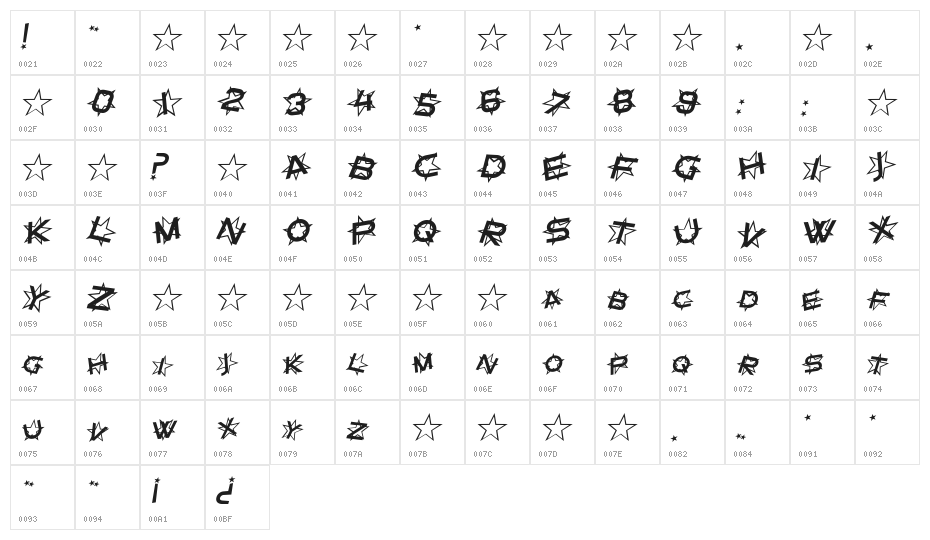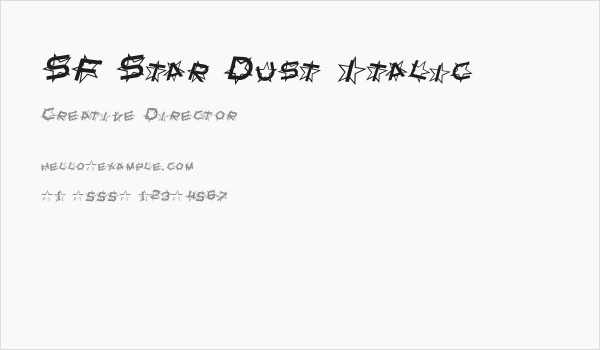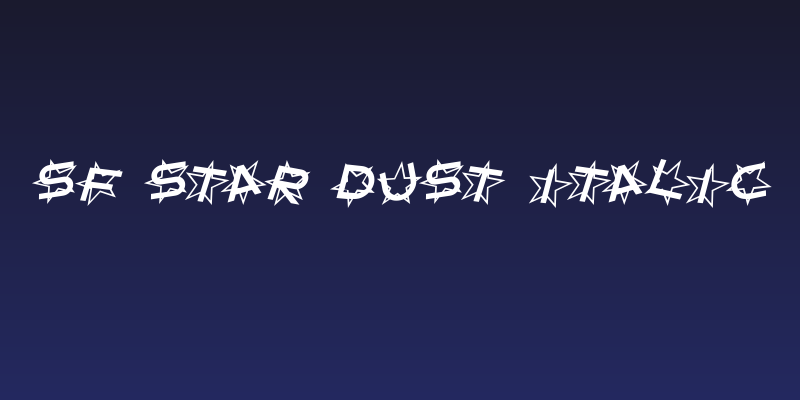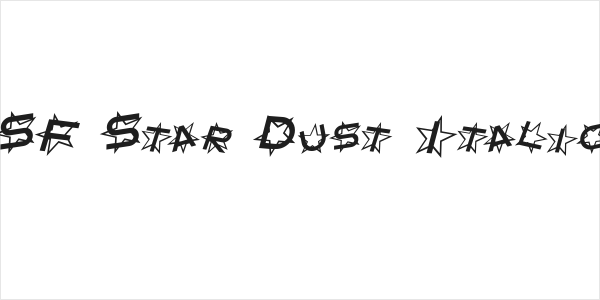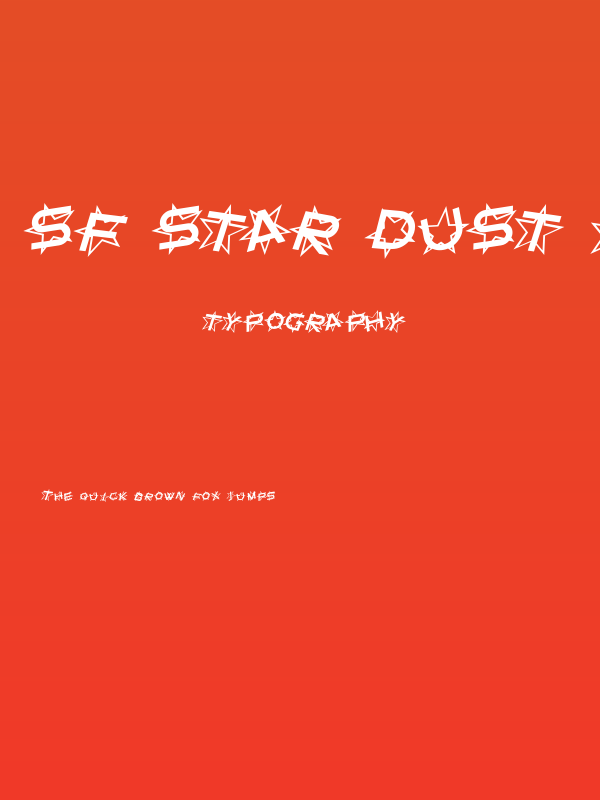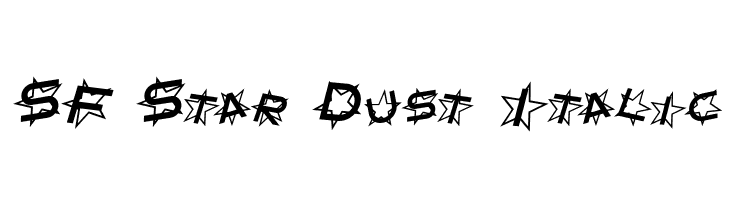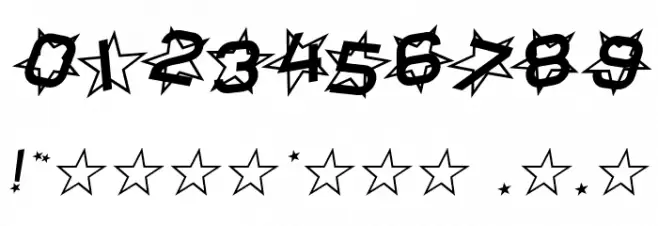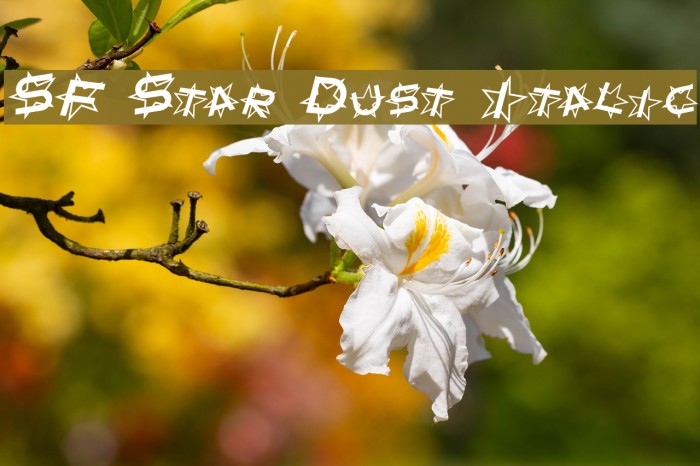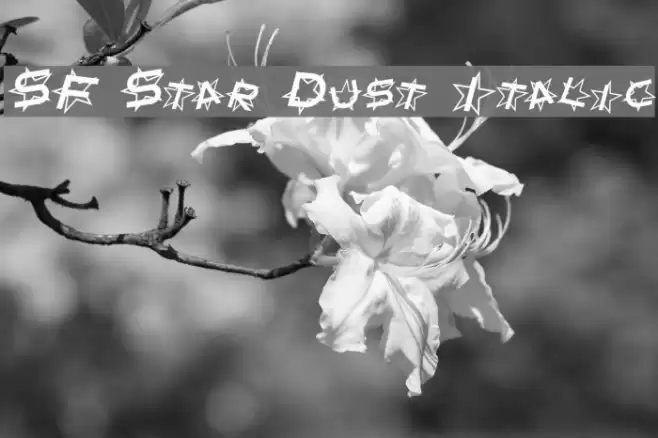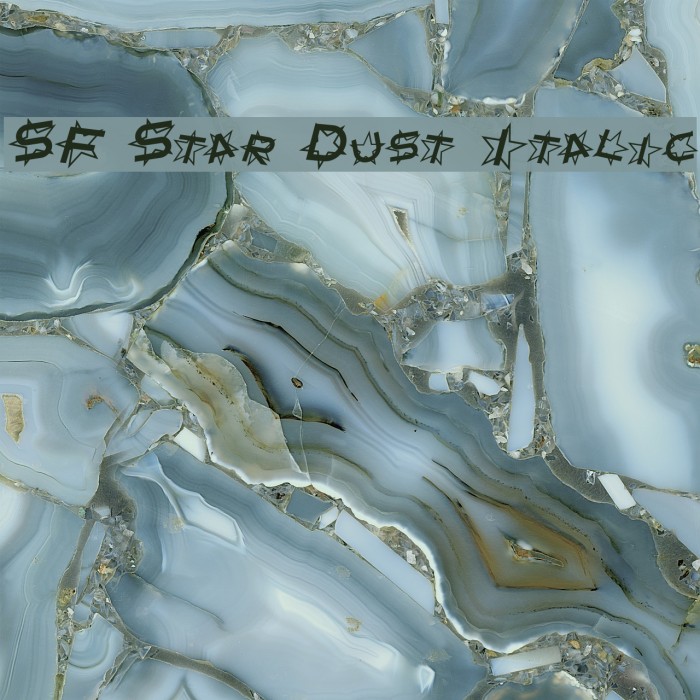
SF Star Dust Italic Font
SF Star Dust Italic Description
This font features a bold, decorative style with a star-themed design. Each character is creatively integrated with star shapes, giving it a unique and playful appearance. The letters are bold and have a dynamic, energetic feel, making them stand out. The font is italicized, adding a sense of motion and flair. The characters are closely spaced, enhancing the compact and cohesive look. The numbers and special characters follow the same starry theme, maintaining consistency throughout the font. This font is perfect for projects that require a fun and eye-catching design.
| Proposed Projects | Ideal for party invitations, children's book covers, event posters, and any project needing a whimsical touch. |